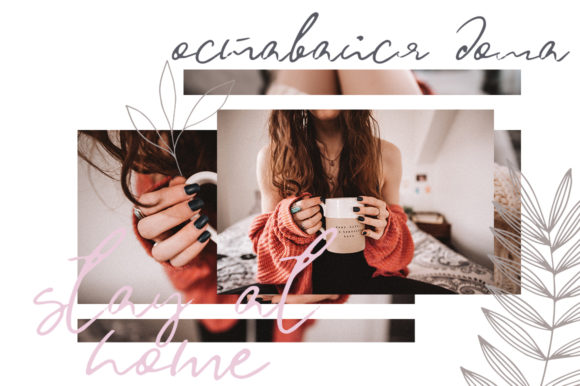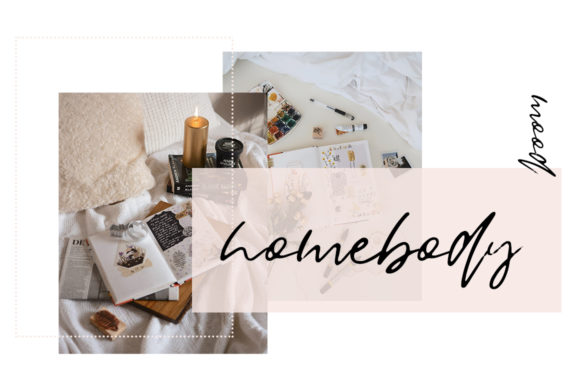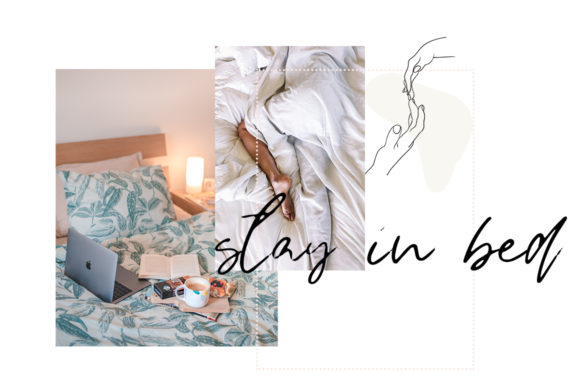
Introduction to Skylar Rose Font
Skylar Rose is an incredibly relaxed, down to earth handwritten font.
Its casual charm makes it appear friendly and versatile Whether youโre looking for fonts for Instagram or calligraphy scripts for DIY projects, Skylar Rose will turn any creative idea into a true piece of art.